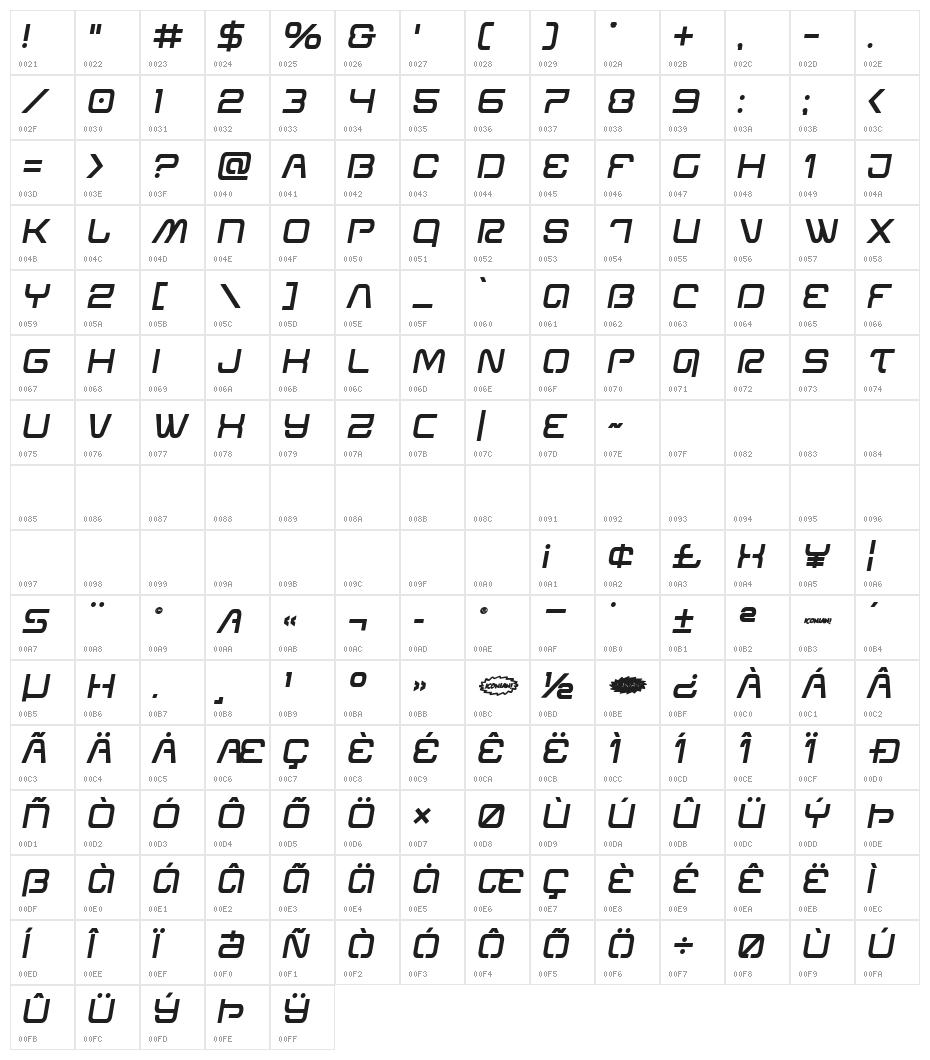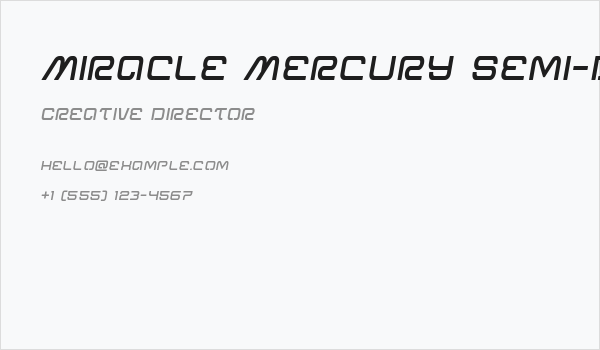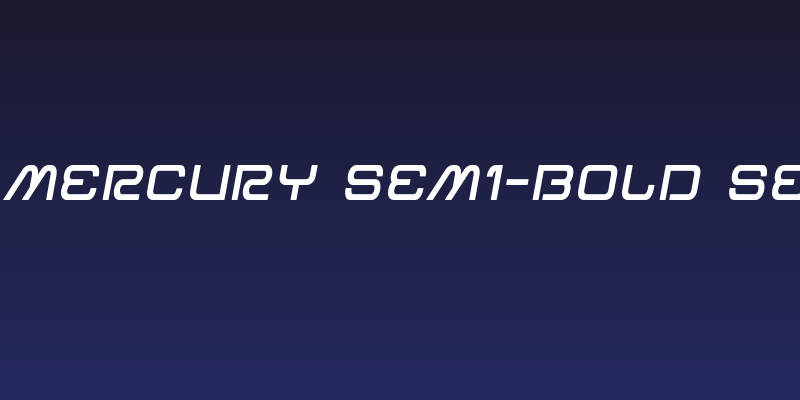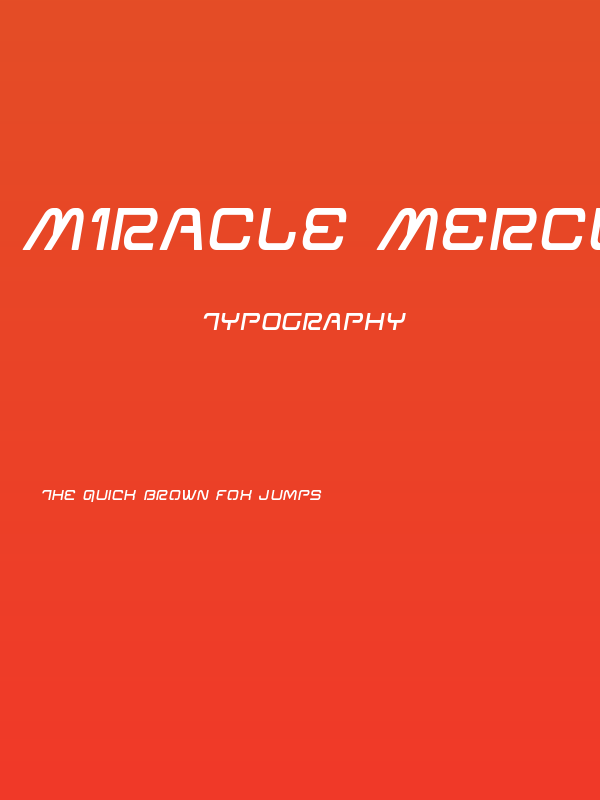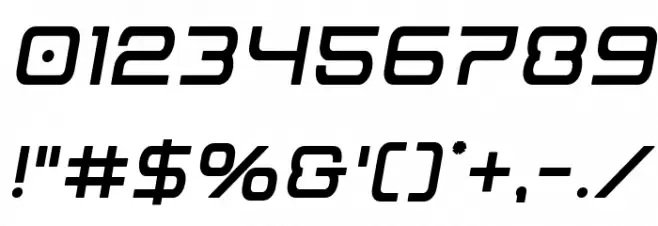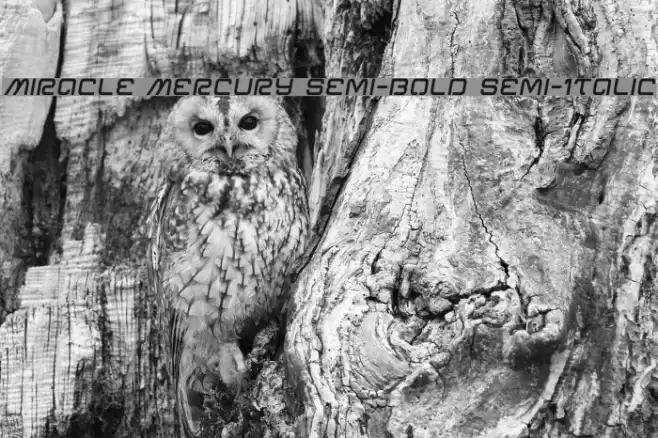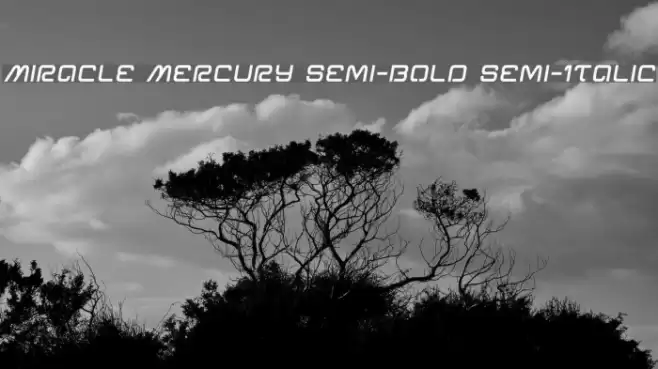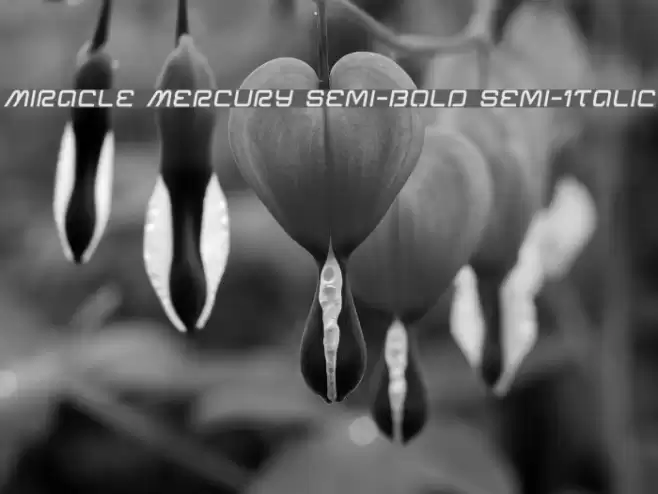
Miracle Mercury Semi-Bold Semi-Italic Font
Miracle Mercury Semi-Bold Semi-Italic Description
This font features a modern, semi-bold, semi-italic style with a unique, futuristic appearance. The characters are slightly slanted, giving a dynamic and forward-moving feel. The design incorporates geometric shapes with rounded edges, creating a sleek and contemporary look. The uppercase and lowercase letters maintain a consistent style, with uniform stroke widths that provide a balanced and harmonious appearance. The numerals and special characters are designed to match the overall aesthetic, ensuring a cohesive look across all text elements. This font is ideal for projects that require a modern and innovative touch.
| Overall Style | Futuristic |
| Use Case | Headlines, Logos, Digital interfaces |
| Proposed Projects | Ideal for tech branding, futuristic designs, digital interfaces, and modern advertising. |